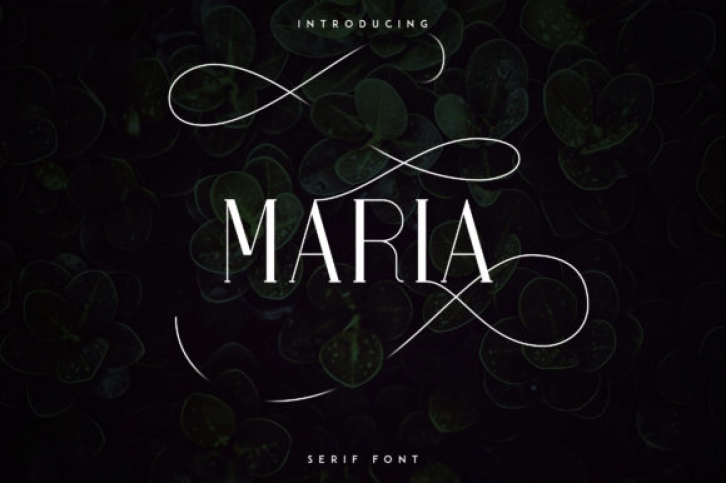
Maria is a thin and elegant serif font This font is perfect for branding projects, home-ware designs, product packaging, wedding invitations, magazine headers – or simply as a stylish text overlay to any background image.